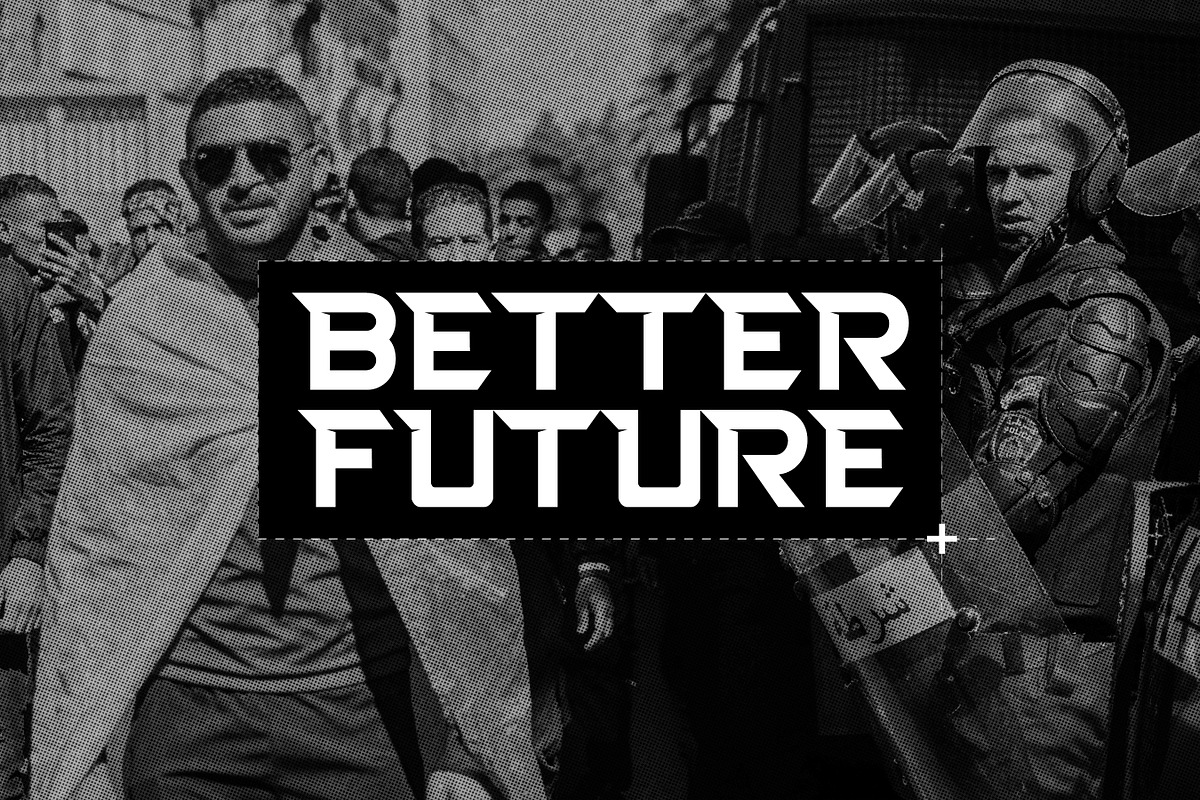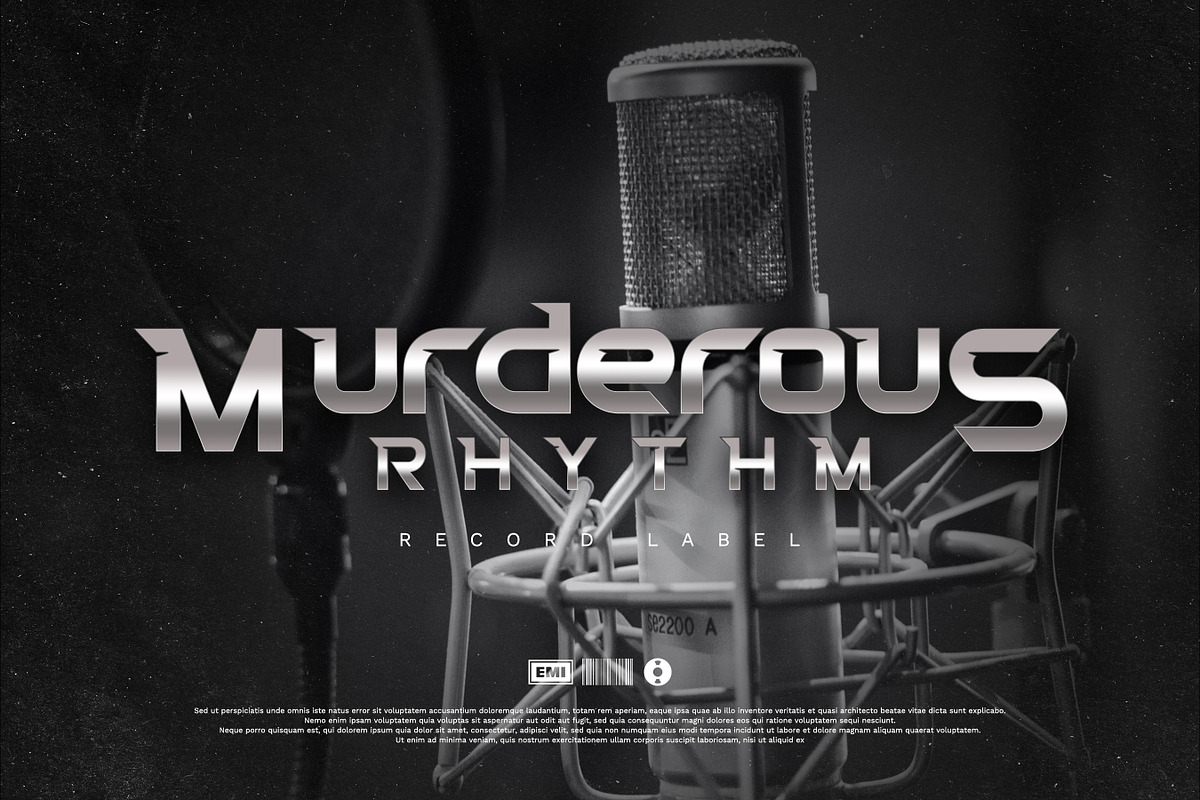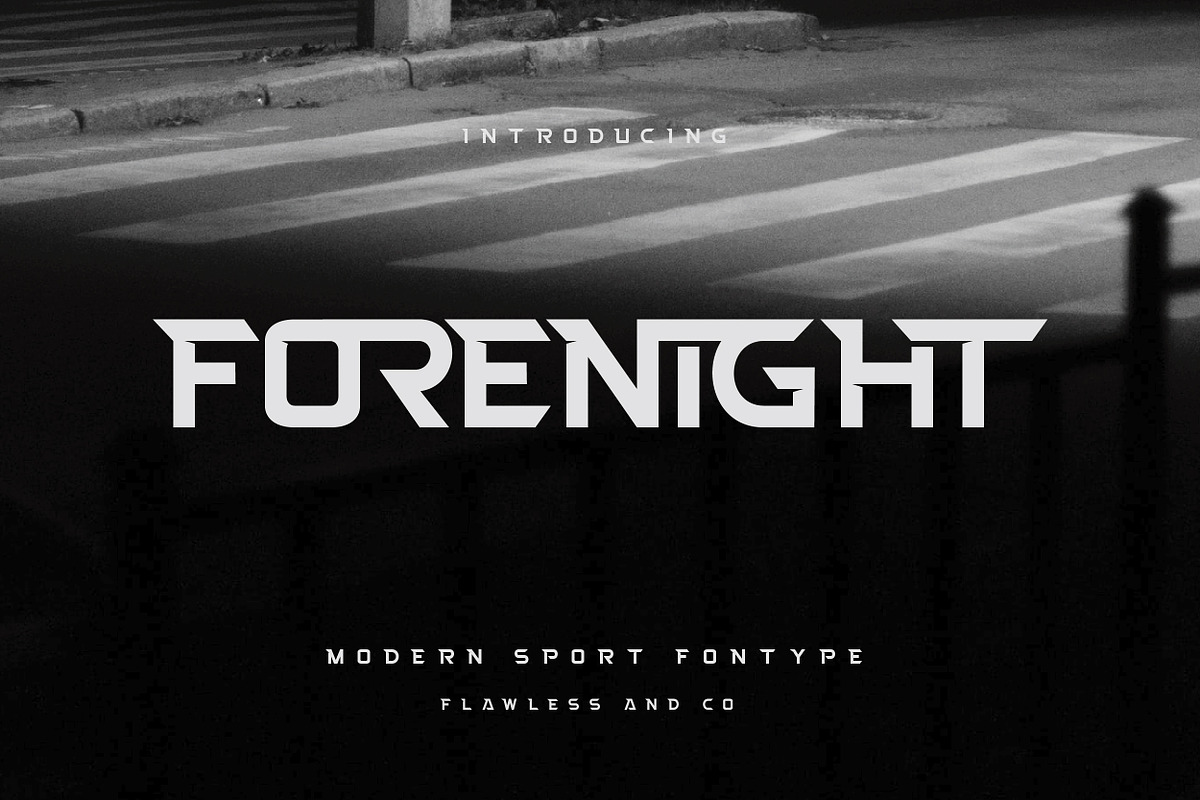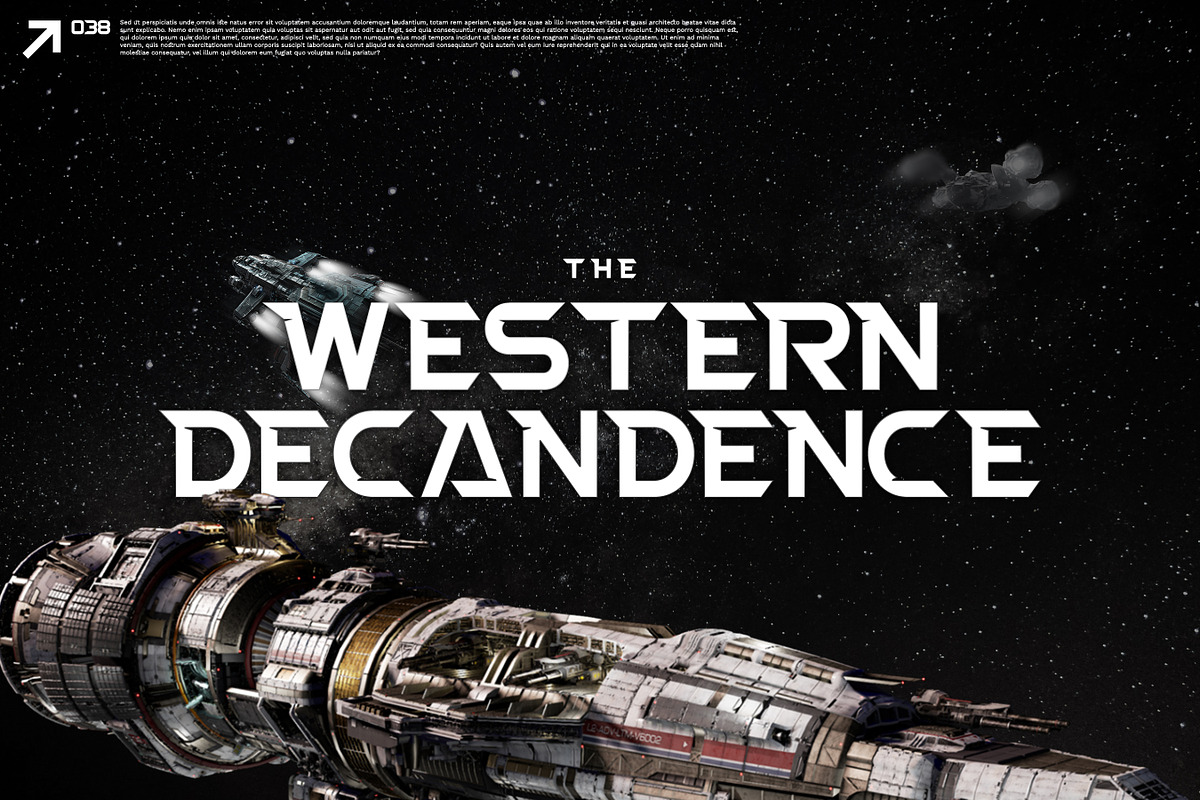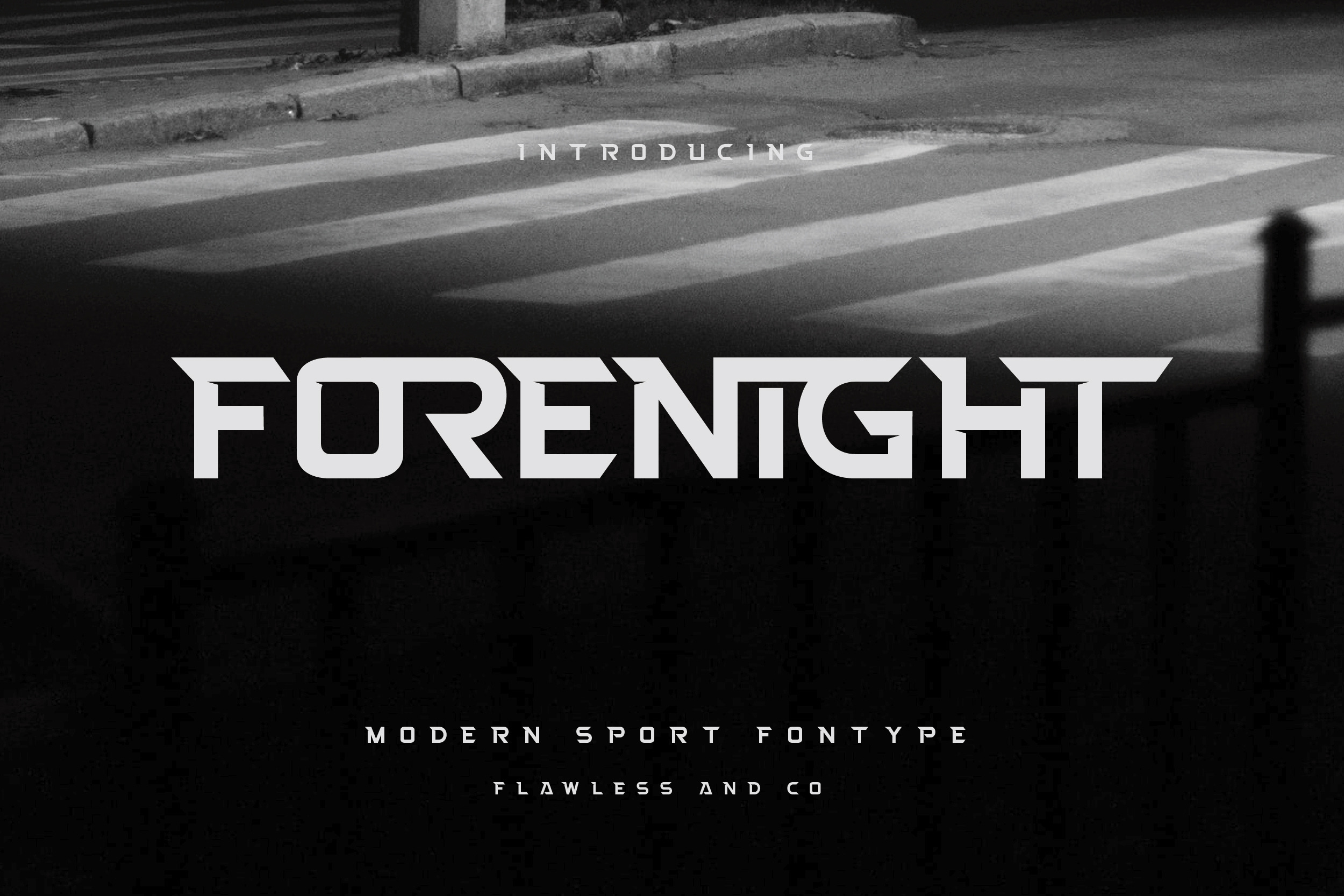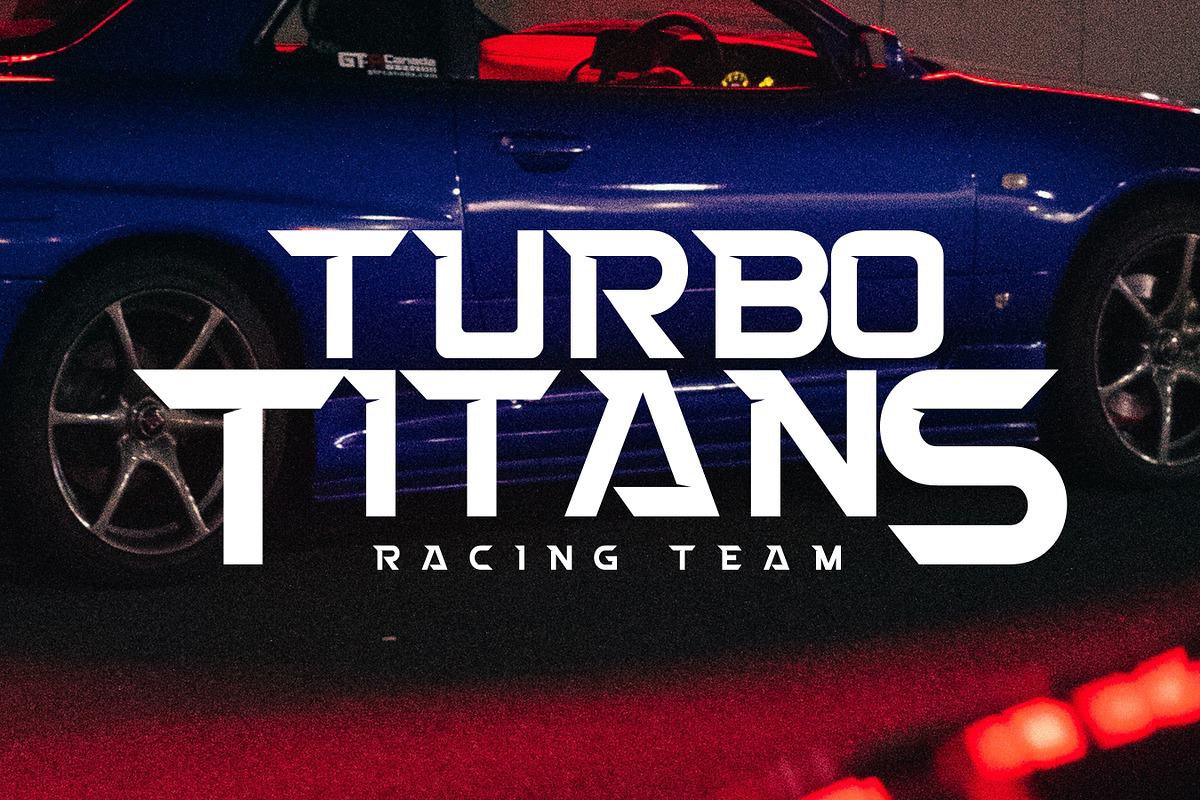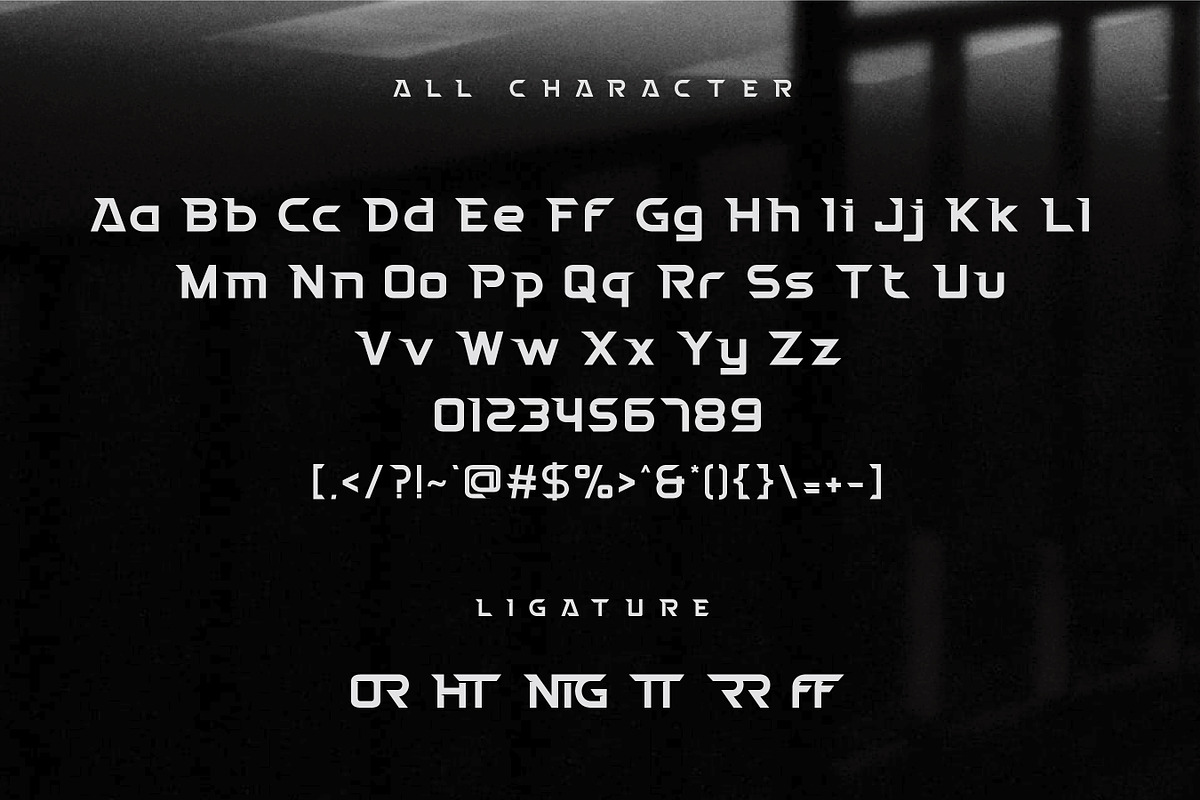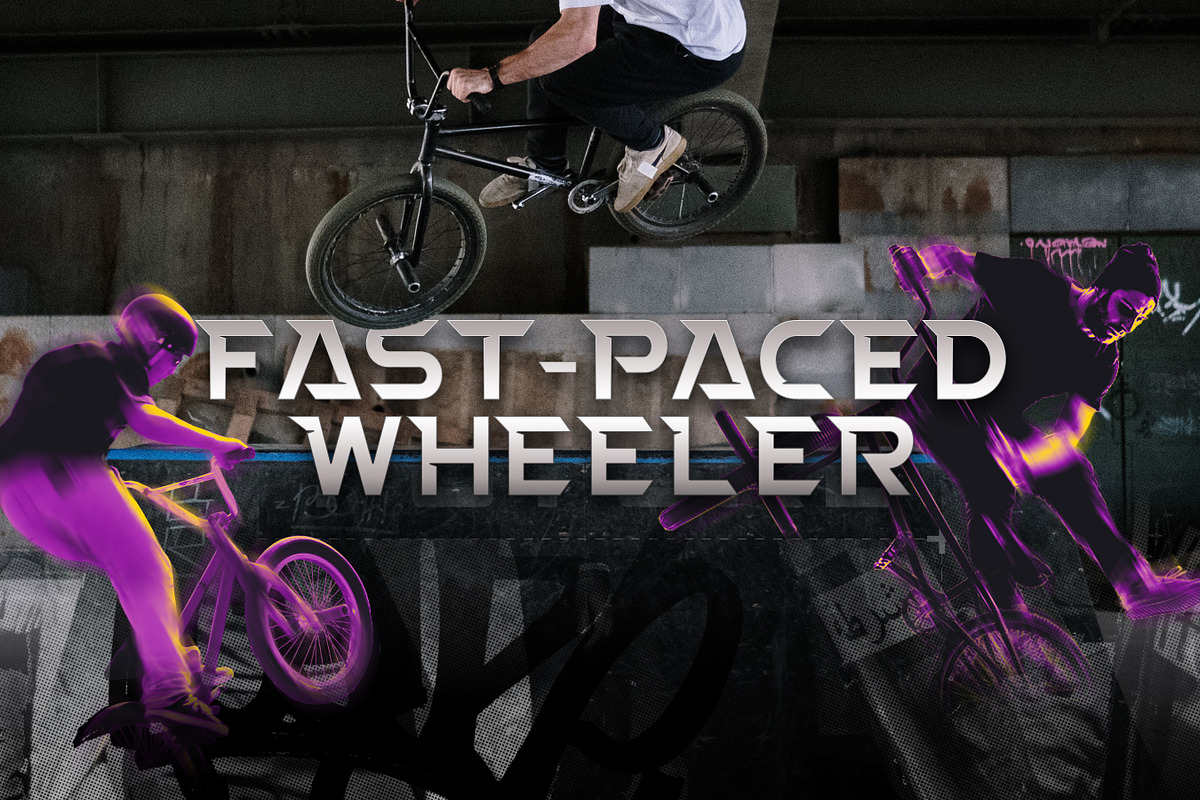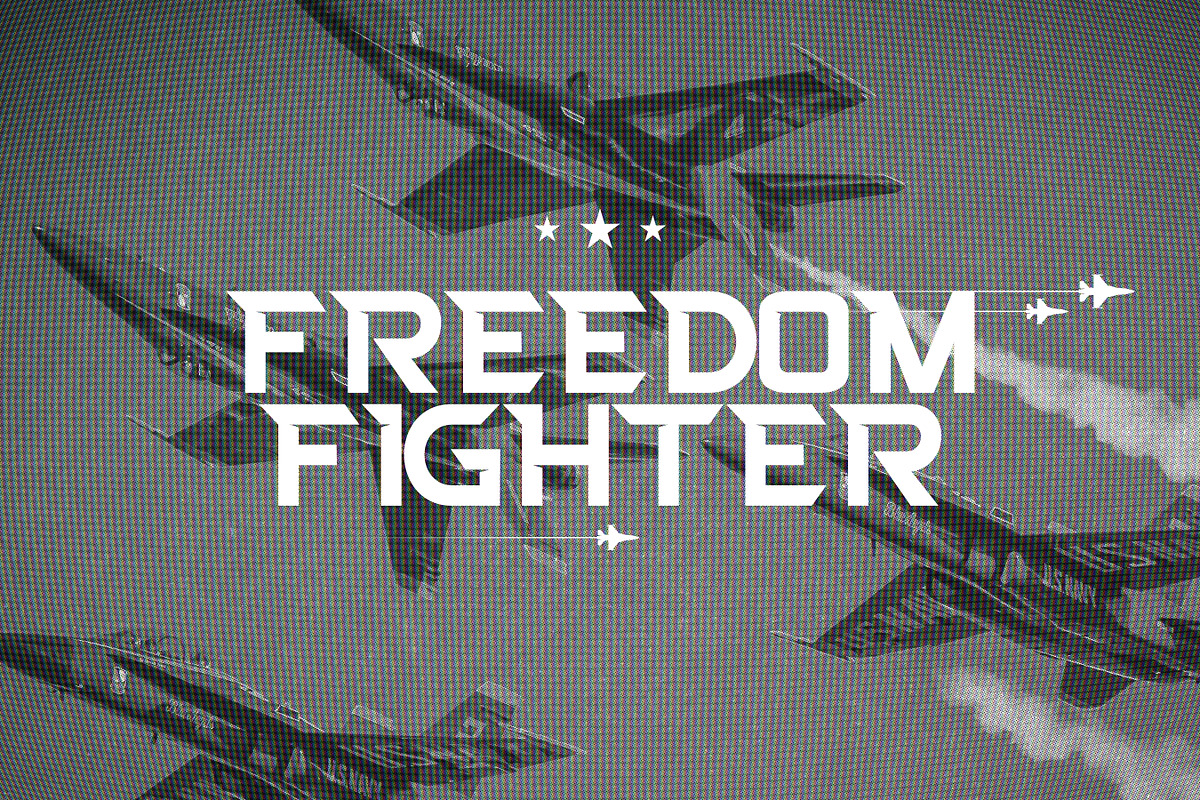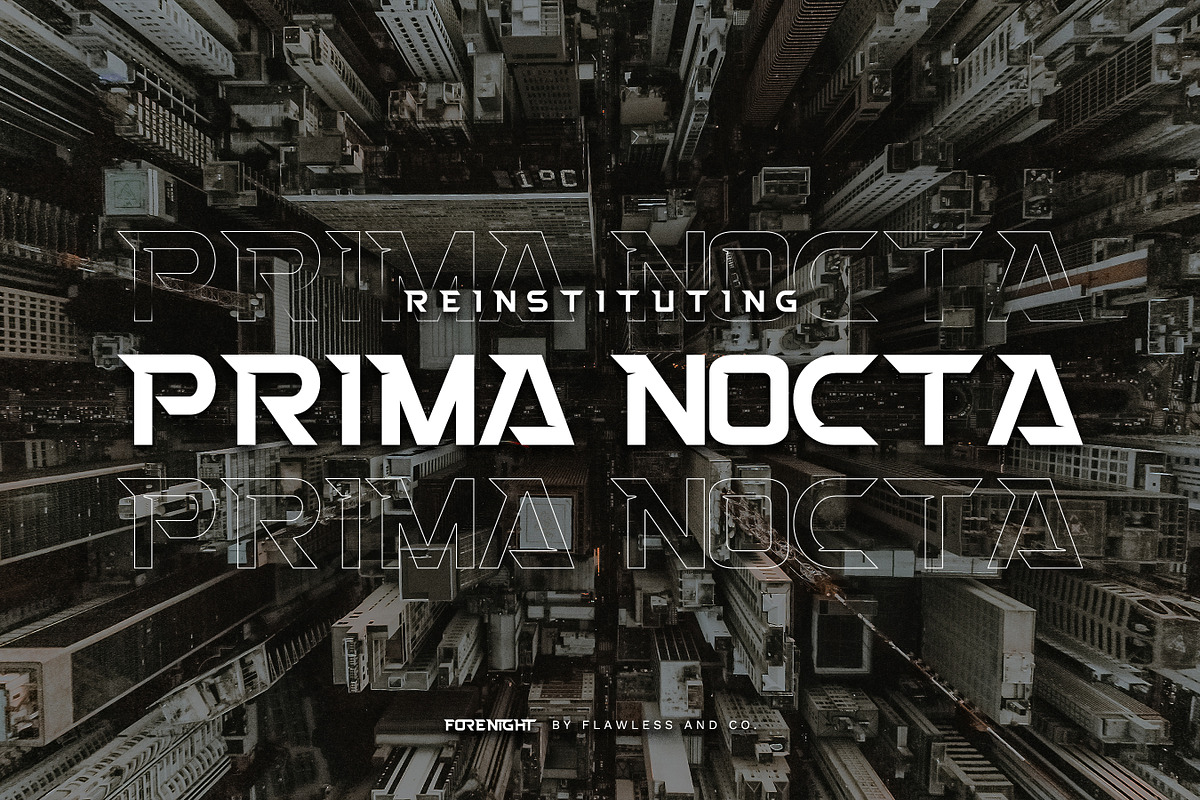
Forenight - Modern Sport Font
Introducing "Forenight" - a dynamic and modern sport font designed to capture the spirit of athleticism and energy. With its bold and sleek letterforms, Forenight brings a sense of power and movement to your sports-related designs. This font is suitable for branding, business, logos, magazines, and others.
a Features :
Multilingual Uppercase alphabet A-Z Lowercase alphabet a-z Alternate Character Numbers 0-9 Some punctuation